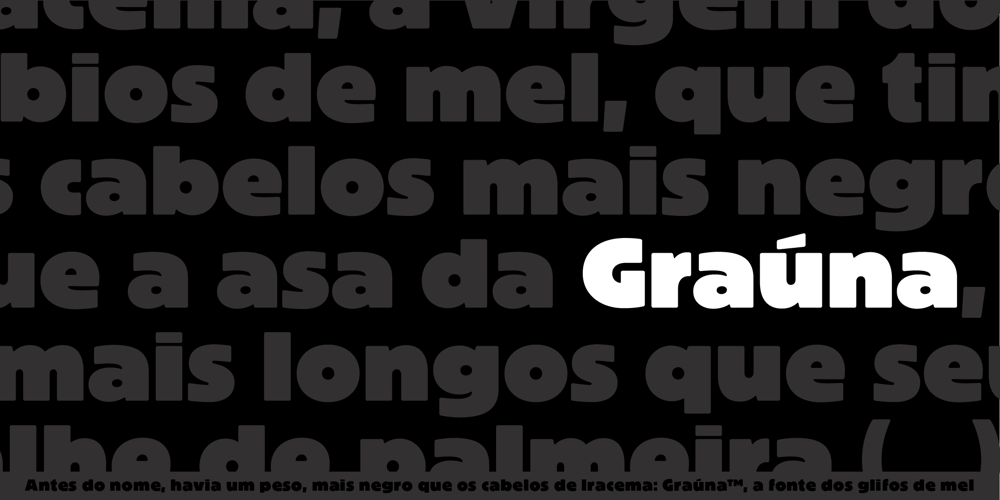
Grauna
Grauna font
Grauna Font Family was designed by Gabriel Figueiredo and published by Typeóca. Grauna contains 1 styles and family package options. Graúna is Typeóca’s first ‘serious typeface’. The idea was to produce a revival of Block Heavy, removing the ‘rough’ texture from its outline. Though other revivals existed, most of them approached the Block family as a whole, leaving aside the idiosyncrasies that make the Heavy weight so unique. In the early stages of its development, however, we realized that a lot of its quirkiness is only possible precisely because of the ‘rough’ texture we were trying to remove. That way, we started going further and further away from the original model, and thinking about the typeface in its own terms, resulting in an impactful yet friendly sans serif, ideal for logos and short titles.